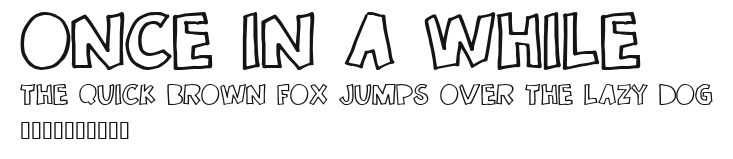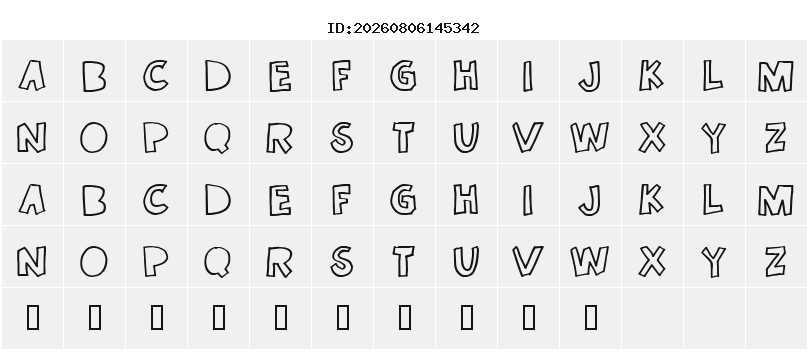
• Font Name: Once in a while
• Font ID: Once in a while
• Full Font Name: Once in a while
• Version: 2
• PostScript Name: Onceinawhile
• Character Count: 53
About Once in a while.ttf
Once in a while.ttf is a modern, elegant sans-serif font designed for ultimate readability and visual harmony. Perfect for branding, headlines, web design, and print materials.